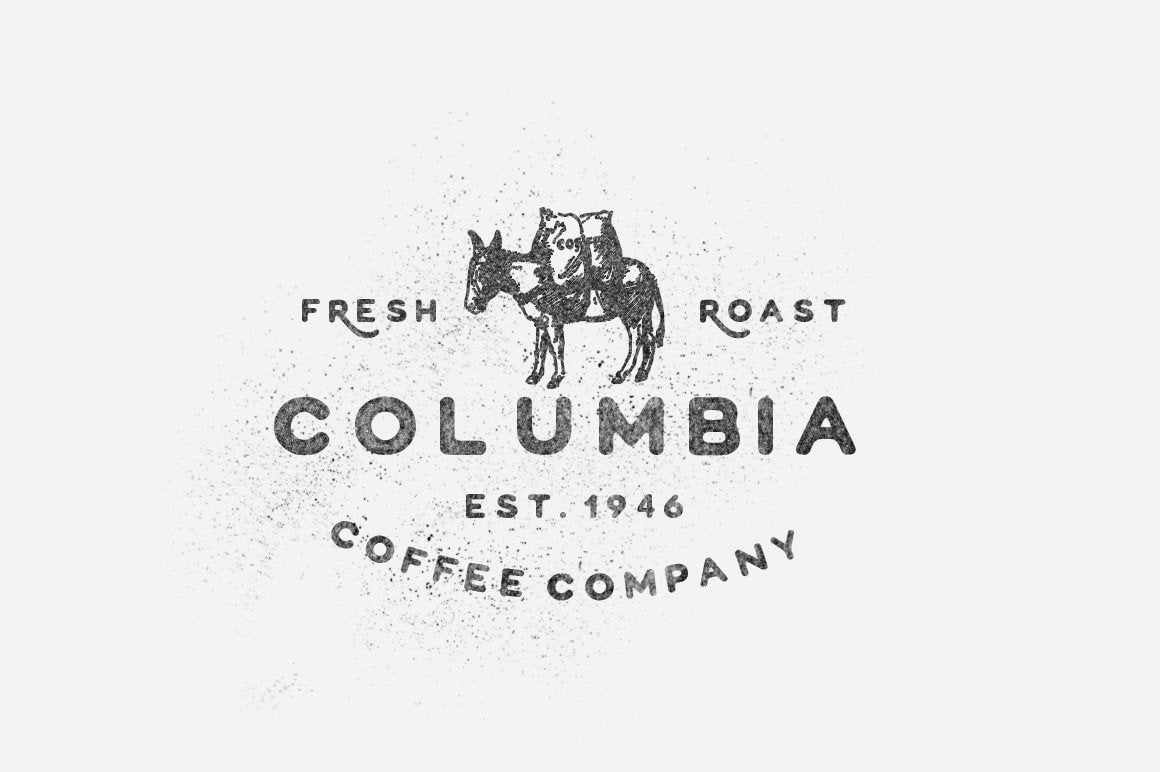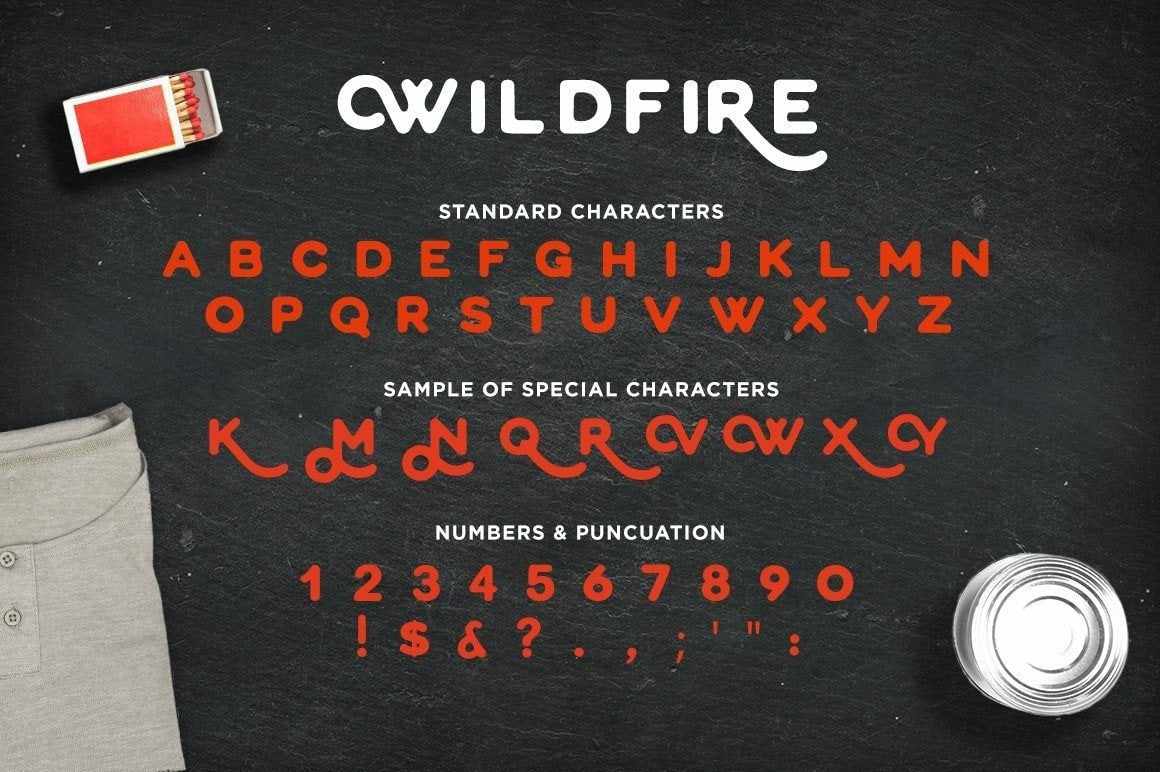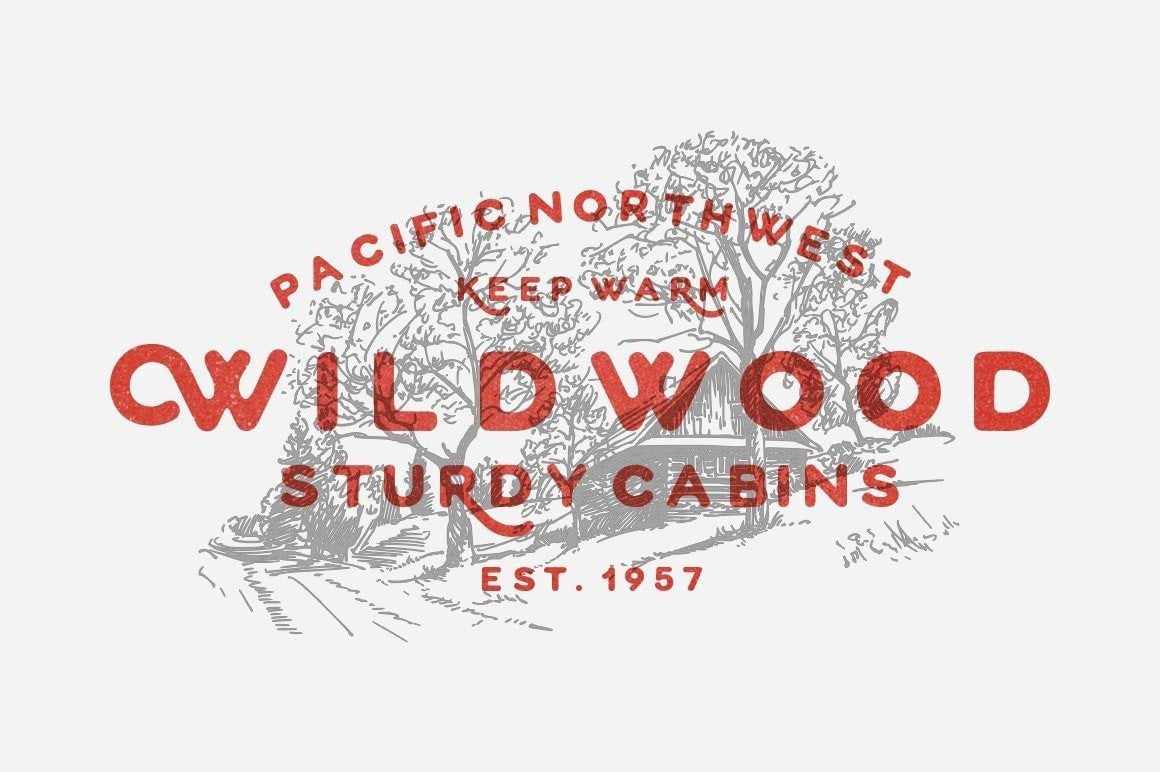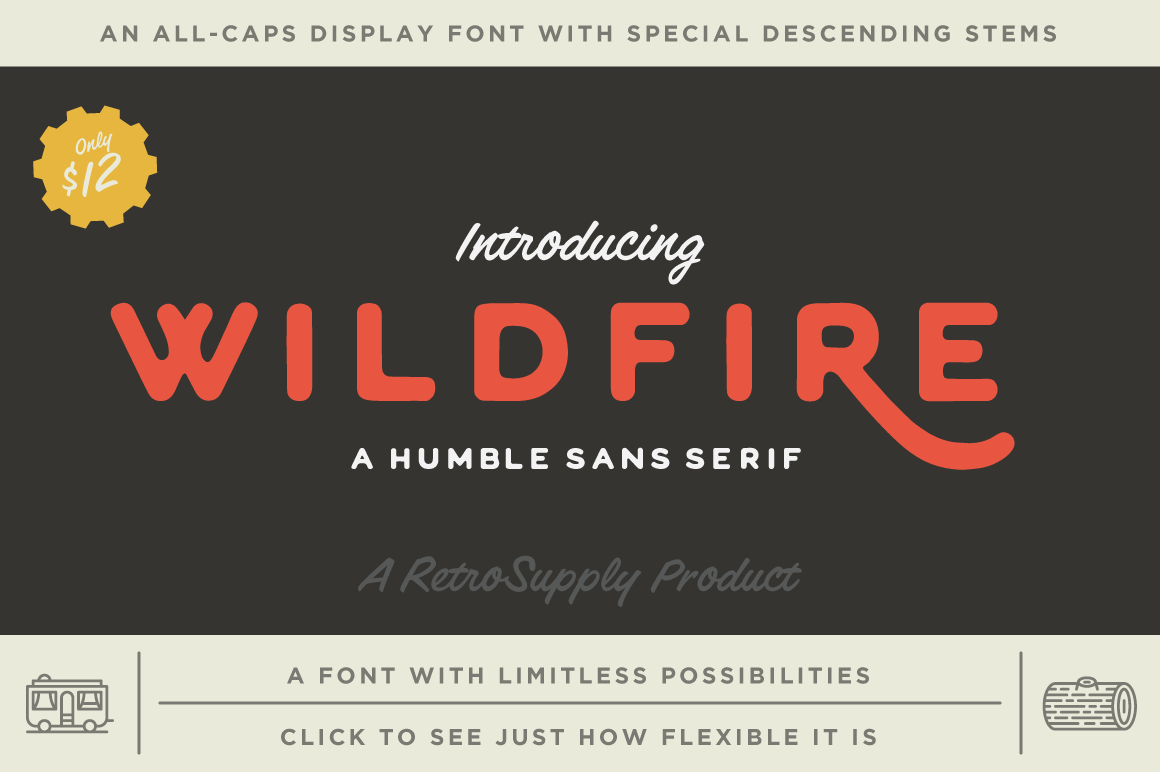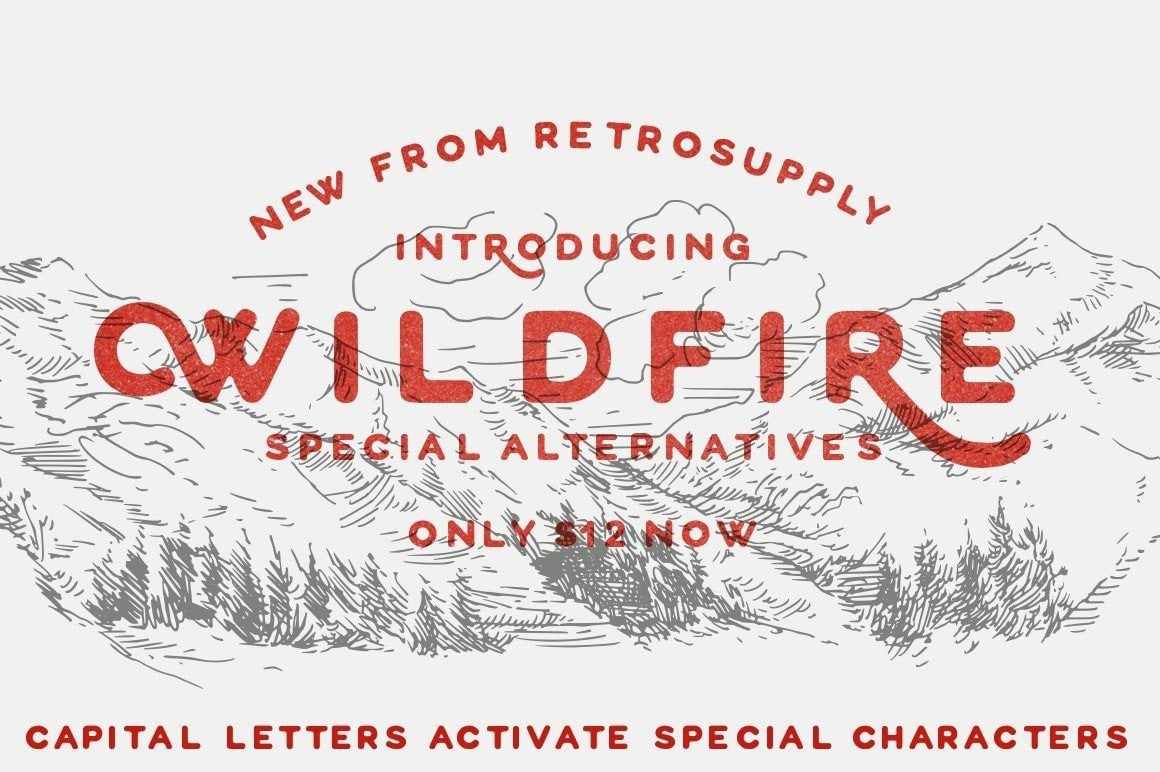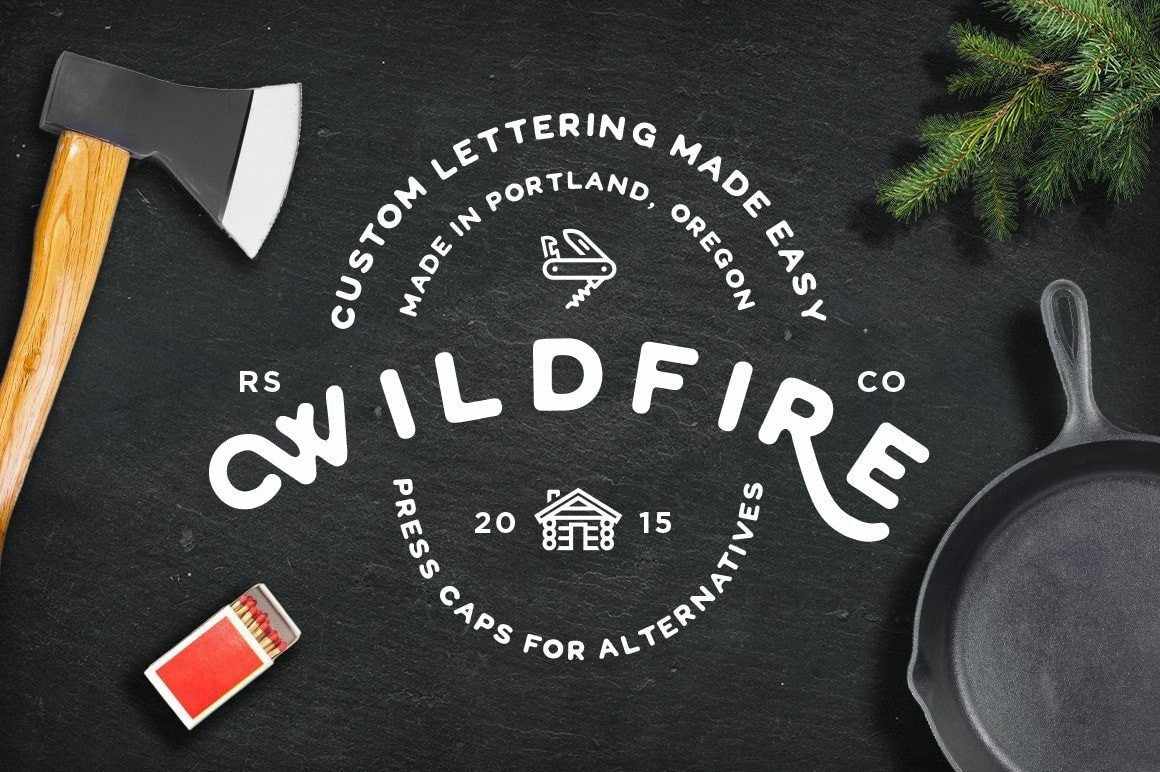
So this year among other things I wanted to start releasing fonts. WildFire is the first RetroSupply font. It's a humble all-caps, display, san-serif fonts. Just alphanumeric characters and limited punctuation. But it looks great, works for all kinds of projects, and has some cool surprise features when you switch to uppercase.
- Works extremely well for typing on curved paths for badges, logos and type based design
- Uppercase letters contain surprise descending stems and other goodies for custom flair
- Beautifully rounded corners give it a warm, friendly feel
Here's what makes it great:
- Rounded corners give it a warm, friendly way about it. Like a good friend home for the holidays.
- Works extremely well for typing on curved paths (for badges, logos and type based design).
- Uppercase letters contain surprise descending stems and other goodies for a custom flair.